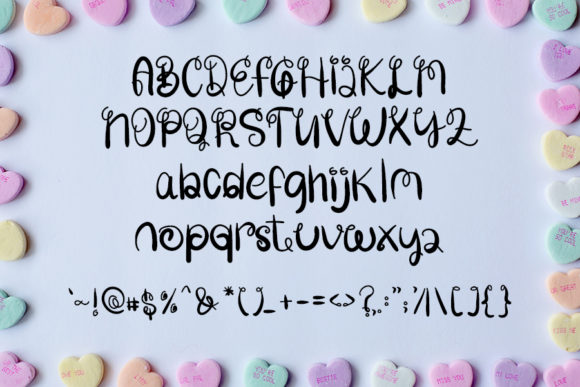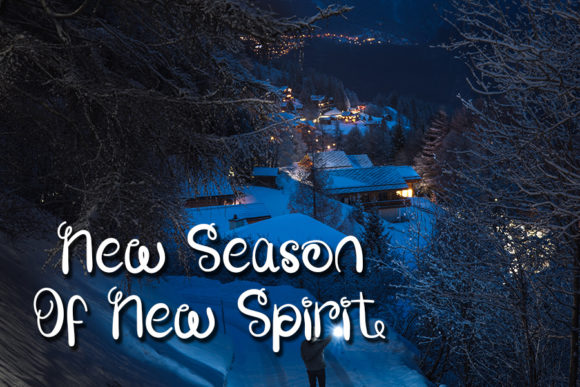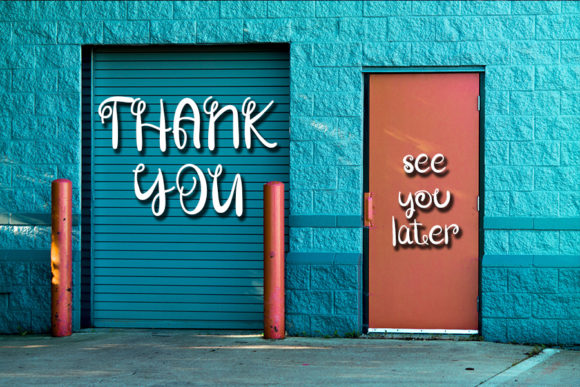
Welcome 2021 Font
About Welcome 2021 Font
Welcome 2021 is a dreamy script font that has curly swashes. This font is fresh and beautiful and can be used to design Youtube banners, Cover Logo Mockups, Wedding Invitations, Cards, Flayer, Crafts.